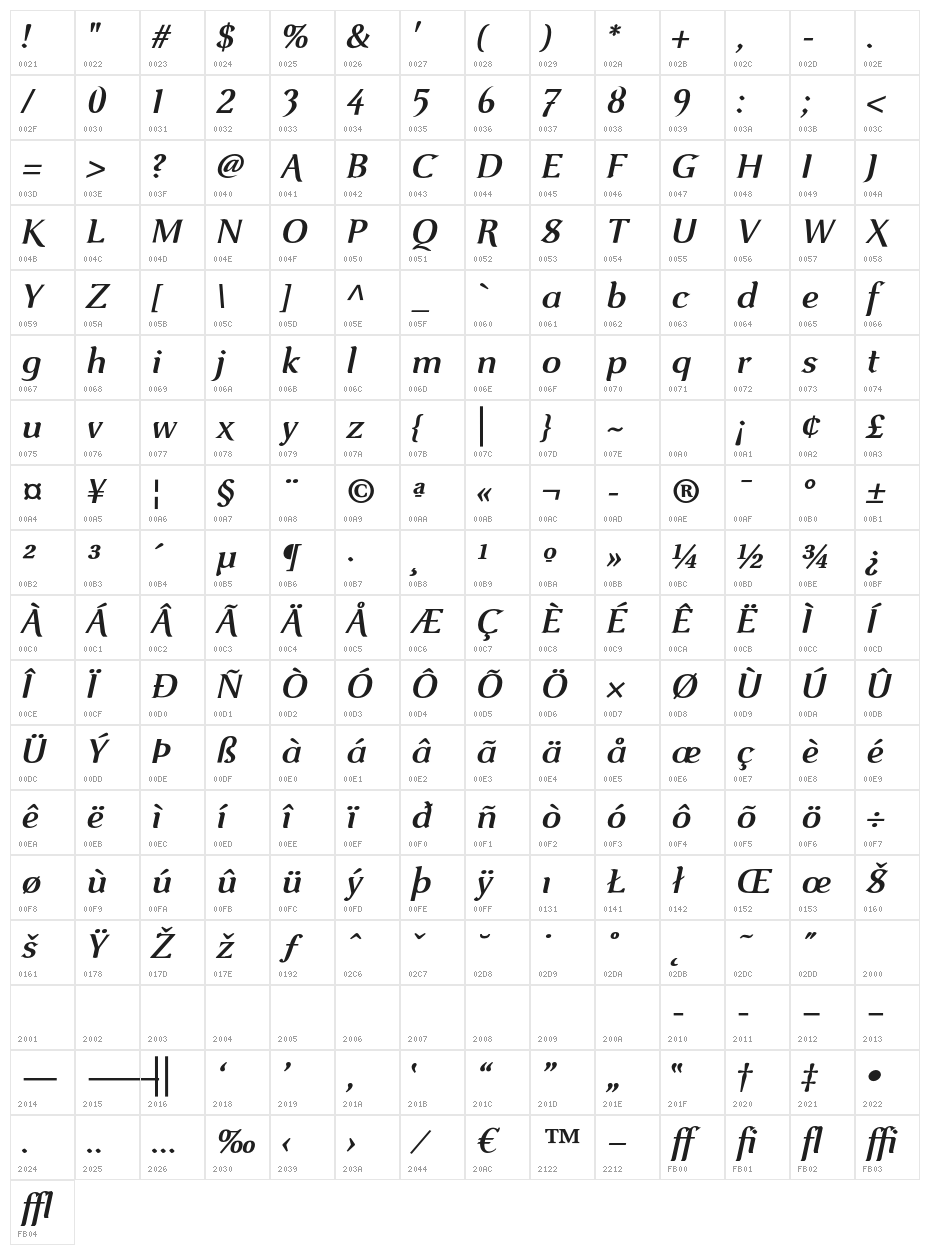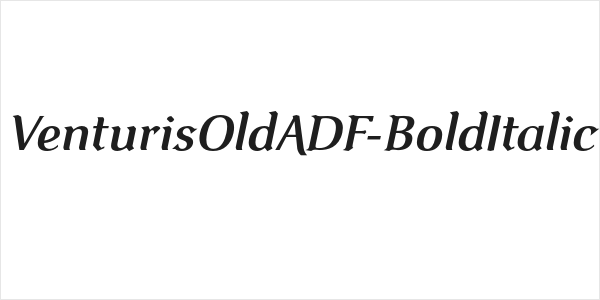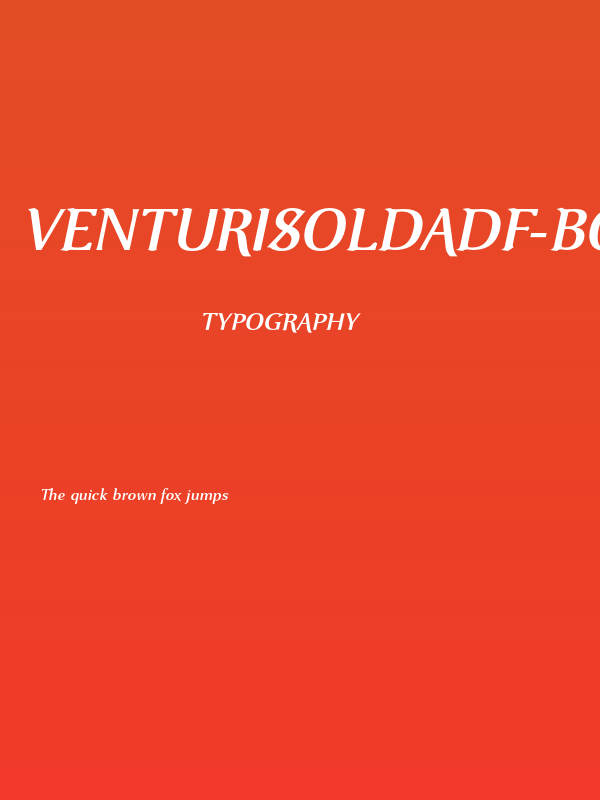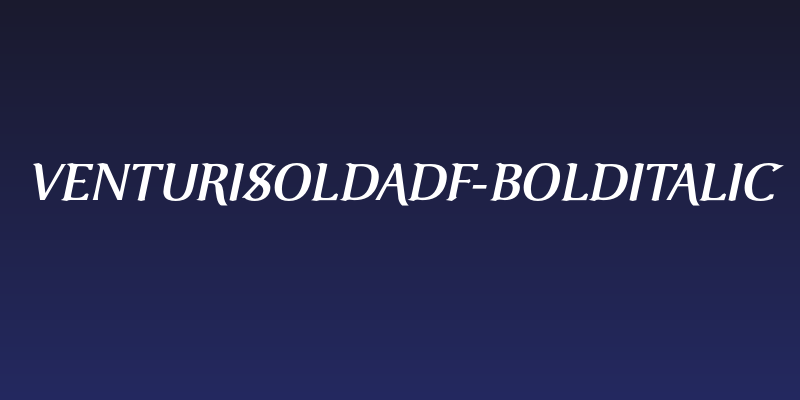
VenturisOldADF-BoldItalic Font
VenturisOldADF-BoldItalic Description
This font exhibits a classic serif style with a bold and italicized appearance, giving it a dynamic and elegant look. The serifs are pronounced, adding a touch of sophistication and tradition. The italic slant enhances the flow and movement of the text, making it suitable for formal and creative applications. The characters are well-proportioned, with a consistent stroke width that maintains readability while providing a strong visual impact. The numerals and special characters are designed to match the overall aesthetic, ensuring a cohesive appearance across all text elements.
| Use Case | Headlines, Logos, Editorial design |
| Proposed Projects | Ideal for book covers, formal invitations, branding, and editorial design. |